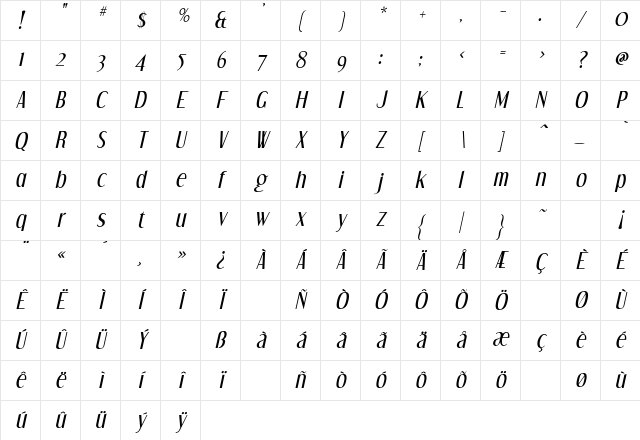
Complete Dream Orphans Italic glyph index. Displaying only characters natively supported by Dream Orphans Italic font.
Dream Orphans is a composed and adaptable typeface that performs quietly and consistently across a wide range of design contexts. The slanted form adds forward momentum and visual energy.
Pro Tip: Use Dream Orphans for emphasis, pull quotes, and subheadings where its slanted energy can add rhythm to the layout.